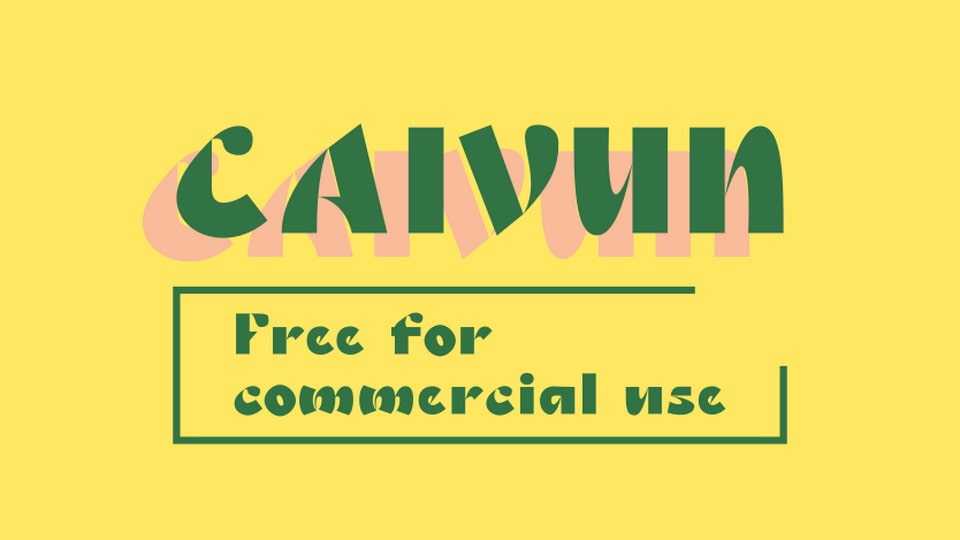
Download Caivun font, a bold, classy, art deco typeface with a unique design. The characters feature a dynamic interplay of sharp edges and graceful curves, creating a visual rhythm that is both daring and refined.
Designer: JingYo